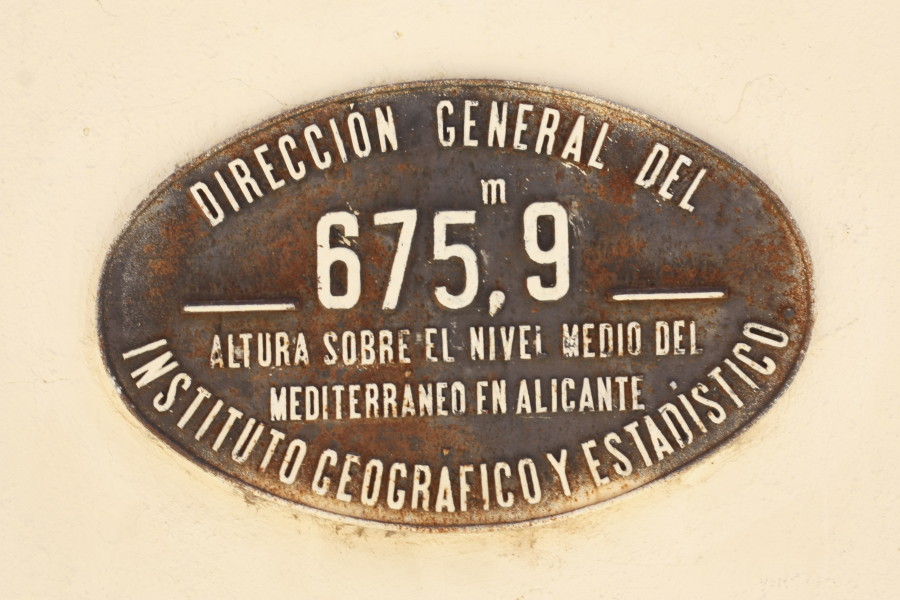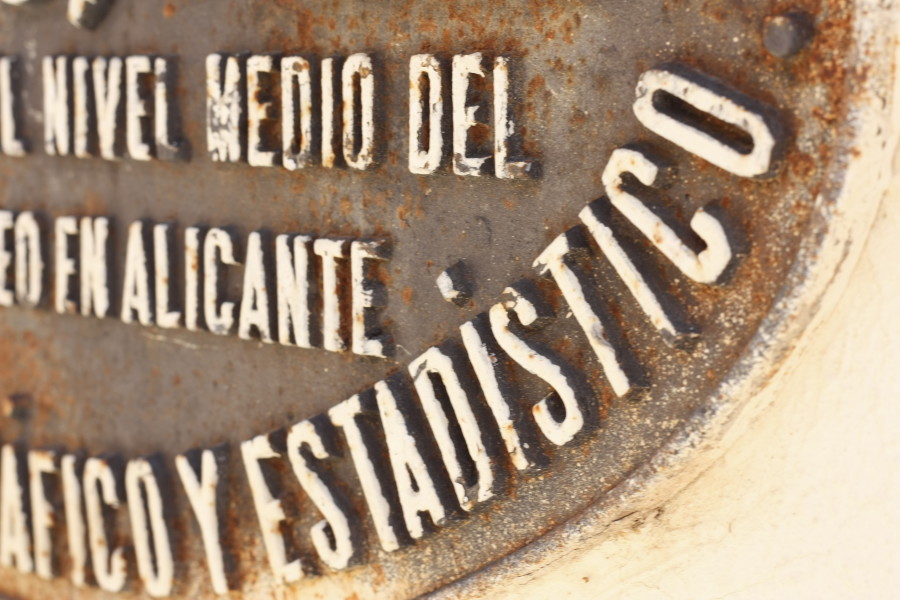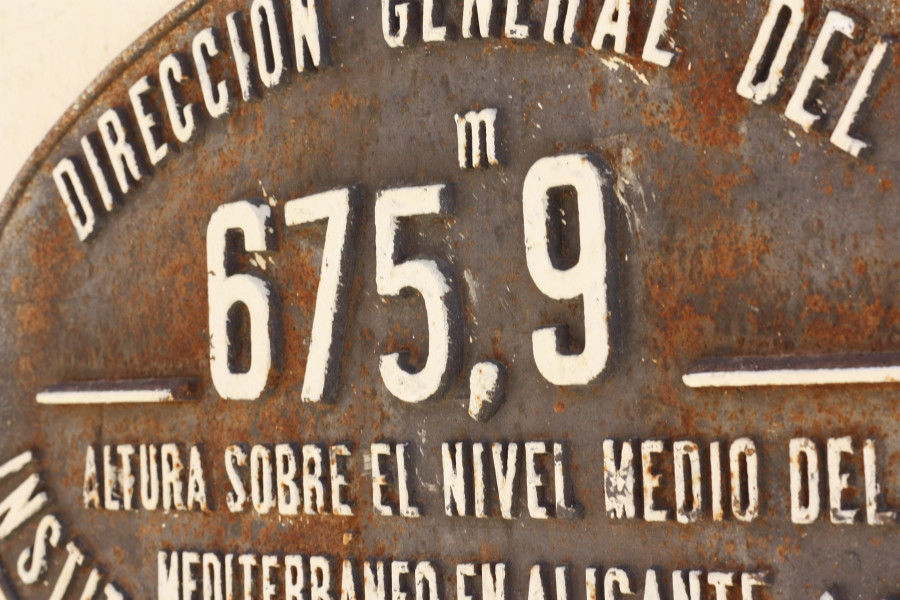
2014 Recap: ten ‘lettering-moments’ of the year
I cannot find a better way to recap the year 2014 —and incidentally to use this almost-forgotten blog— other than choosing the ten best lettering-moments of the year. I am afraid they will be my moments, those that had a singular meaning, of pictures that I took in places that I visited in Spain and England.
I have to recognise that going through all my pictures of this year and choosing only ten examples of lettering has proved to be a difficult task, only ten!
But here they are, in no particular order, not from good to better, nor in chronological order, nor following any particular lettering taxonomy; my ten lettering moments, the most touching, pleasing, appealing, or in some cases, quite the opposite:
Peveril of the Peak
Taken in Manchester, in March 2014
I visited Manchester for the first time this year. The main reason for this trip was to attend the talk by Laura Meseguer during BCN-MCR 2014, an event curated by Dave Sedgwick that introduced the work of Barcelona-based designers to the Manchester audience.
On Saturday we went for an improvised lettering walk around the city. Completely by accident we came across an stunning Victorian pub, The Peveril of the Peak. It was definitely a highlight of the trip. Sadly it was closed so we could not enjoy a pint of beer in the apparently (so I read on other websites) ‘glorious’ interior design.
The two-storey pub sits in a kind of island between two streets, Chepstow Street and Bridgewater Street. It was built in 1829, and rebuilt at beginning of the twentieth century, when the cladded was added, those distinctive yellow and green ceramic tiles that cover the entire exterior.
At some point in the history of the pub it became part of the late Wilsons Brewery and —wait for this— the lettering on the fascia (the ones that read ‘Peveril Of The Peak’ and ‘Wines & Spirits’) was covered by the brewery’s uninteresting signage. Thankfully, the Wilsons’ signs were removed in the 1980s, I guess when the brand disappeared completely. Some signs from Wilsons Brewery still remain attached to the back of the building, the lights and other fittings. The clever spacing in ‘Wi’ and ‘Sp’ definitely deserves a mention.
And finally, the name. According to heritage websites it comes from a horse-drawn stagecoach that ran between Manchester and London, or maybe, from the book with the same name authored by Walter Scott, that was published six years before the pub opened.
More can be found in blogs about Manchester heritage, here (including some wider images, as in that trip I only had a 50mm lens) and here. My entire album of lettering from Manchester can be seen in Flickr.
Distrito, Barrio, Manzana
Taken in Valencia, June 2014
Once again the city of Valencia held the Congreso Internacional de Tipografía, CIT, a mandatory event for anyone interested in typography in Spain, organised every two years by Raquel Pelta. I arrived to Valencia a few days in advance so I had time for an informal and improvised lettering walk around the city with two type-friends. We photographed these plaques that mark the district, the neighbourhood and the block of that area. These kind of signs are nothing new but these in particular were quite clever. Each character is a separate and interchangeable ceramic tile, so if any part of the information would be changed it would be quite easy to update it without having to make a new sign. It is quite smart, but I wonder how many times that actually happens.
I have not been able to find any information about these signs so far but I have sent the information to a good journalist and designer from Valencia who might be able to gather something about them. However, I have found similar images on Flickr.
For those who speak Catalonian there is an interesting article from archaeologist Josep Vicent Lerma about the house numbering introduced by the Spanish king Carlos III in 1769.
Bodegas ‘El Maño’
Madrid, taken in November 2014
I saw this lettering in a recent visit to Madrid. ‘El Maño’ was scarcely 20 metres away from my doorstep when I lived in Madrid back in 2000, but I do not remember seeing it before. So when I went back to have some typical food from Madrid (it’s the perfect place for ‘tapas’ and beers), I was happily surprised. The bar was built in 1927 and rebuilt in the 1950s. Every little detail was taken into account for the design of the ‘taberna’: mirrors, moulding, and of course the mosaic on the floor featuring the winery crest and a sans serif that can be found in many places around Madrid.
The bar belonged to the ‘taberna’ opened by Francisco Martínez y Antonio Pérez, both from Aragón, a region of Spain between Madrid and Catalonia whose people are usually called ‘maños’, hence the name of the bar. They opened nine similar bars towards the beginning of the century and nowadays only two remain in place.
More can be seen in this blog about Spanish bars [in Spanish].
NovaDenia